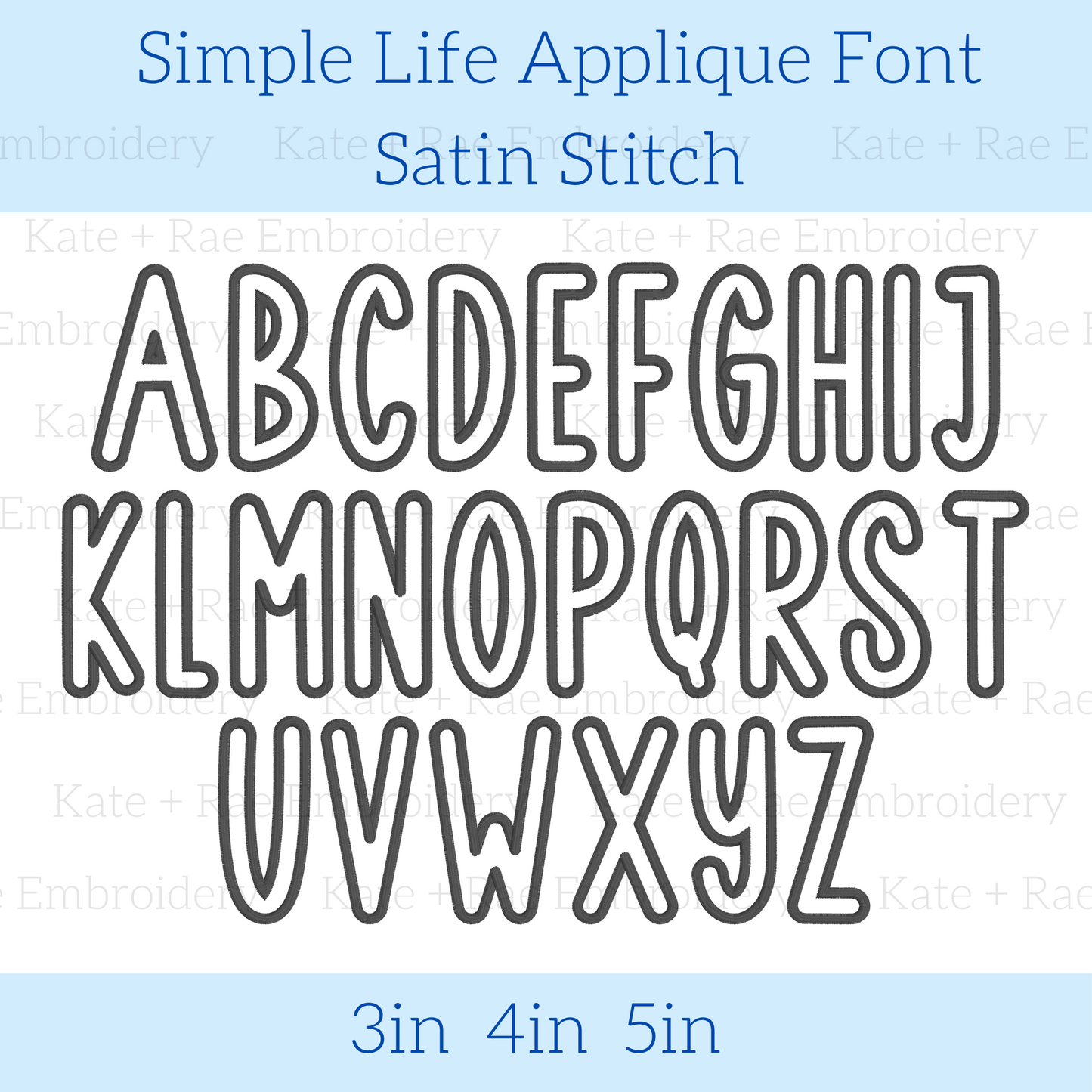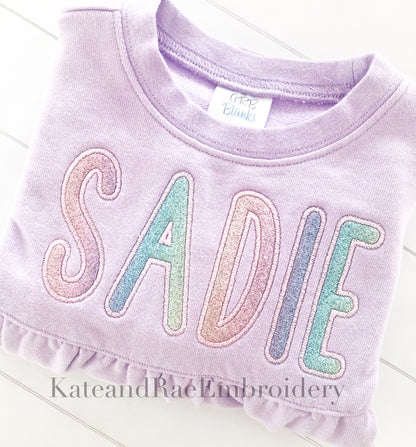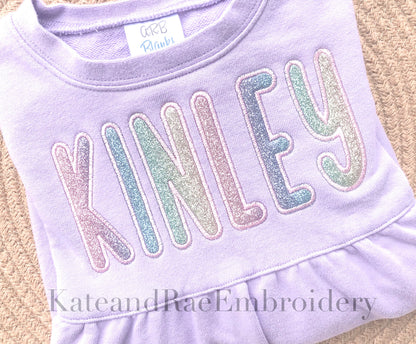
Simple Life Applique Font - Satin Stitch
Meet Simple Life, a clean and classic satin stitch applique font! Personalize names, monograms, sweatshirts, and kids' outfits.